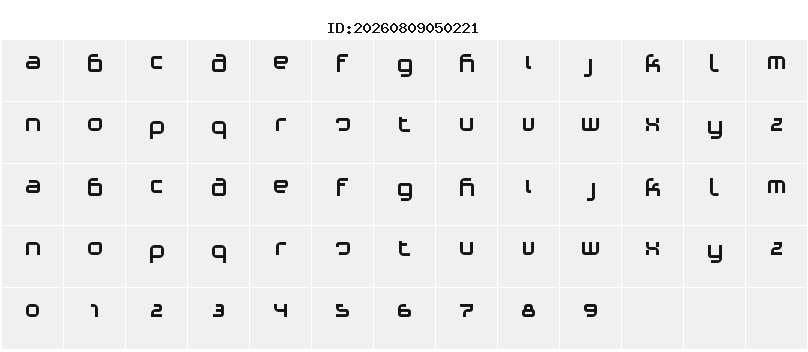
Phino Variation Preview
• Font Name: Phino Variation
• Full Font Name: Phino Variation
• Designer: K.Hachmang
About Phino Variation.ttf
Phino Variation.ttf is a modern, elegant sans-serif font designed for ultimate readability and visual harmony. Perfect for branding, headlines, web design, and print materials.